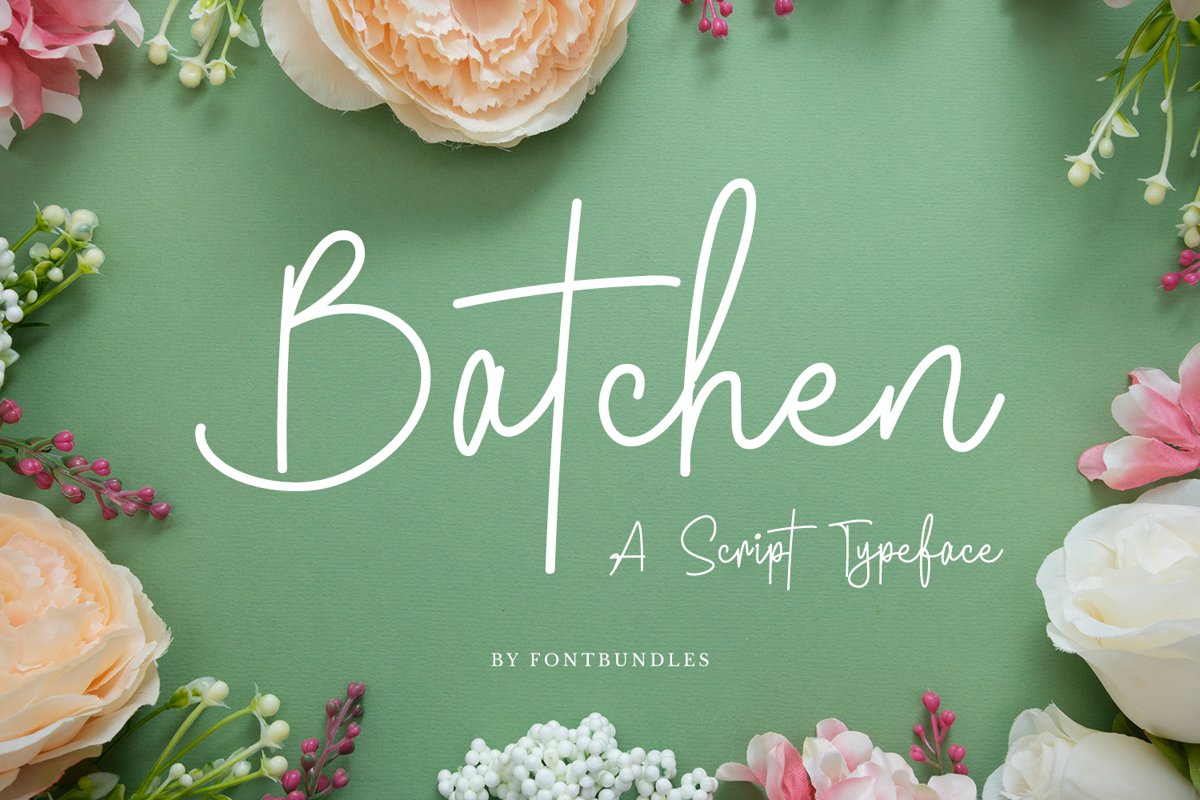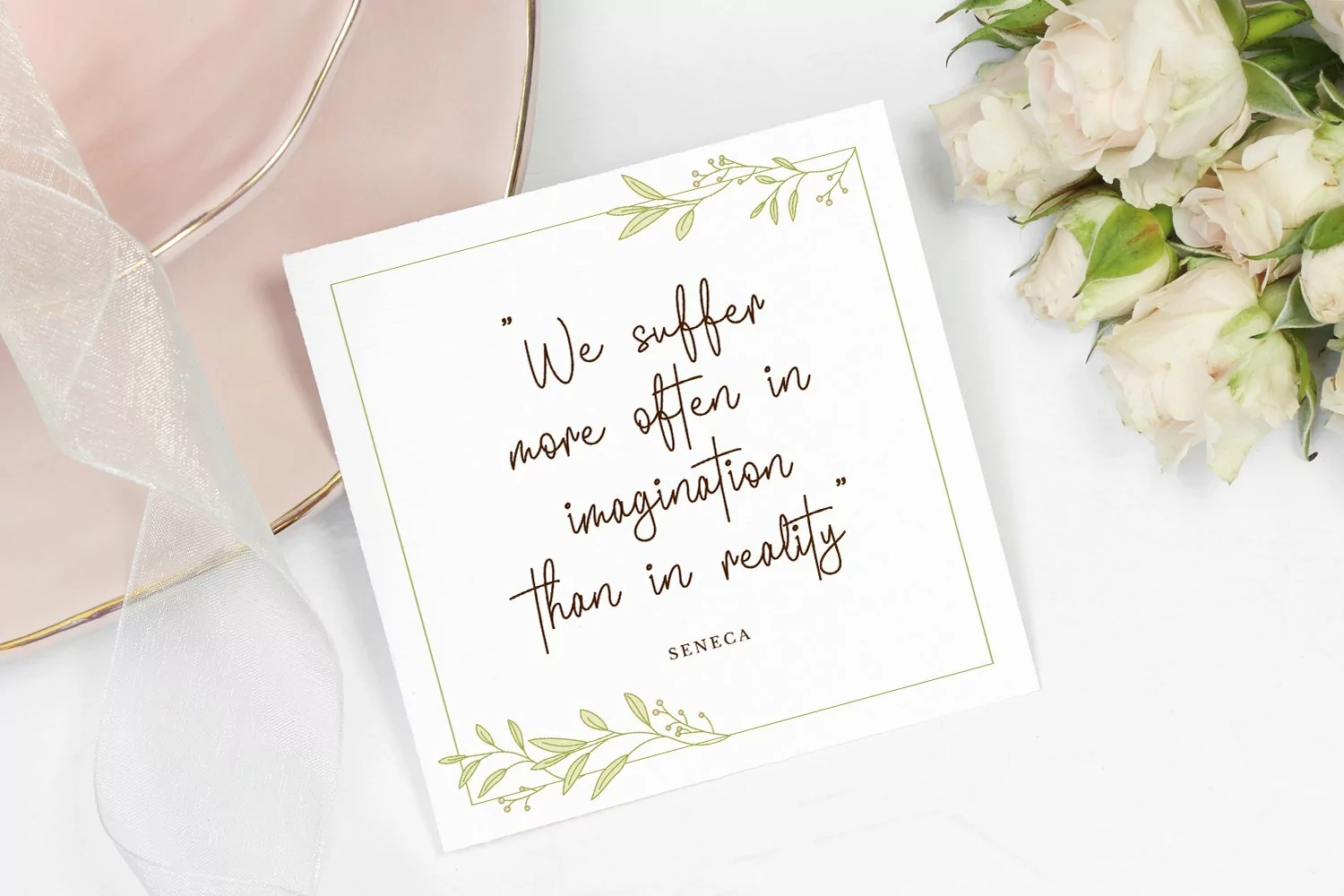
Batchen is a script typeface. Perfect for display, quotes, wedding needs, logo, logotype, signature, branding, packaging, merchandise, business card and may more.